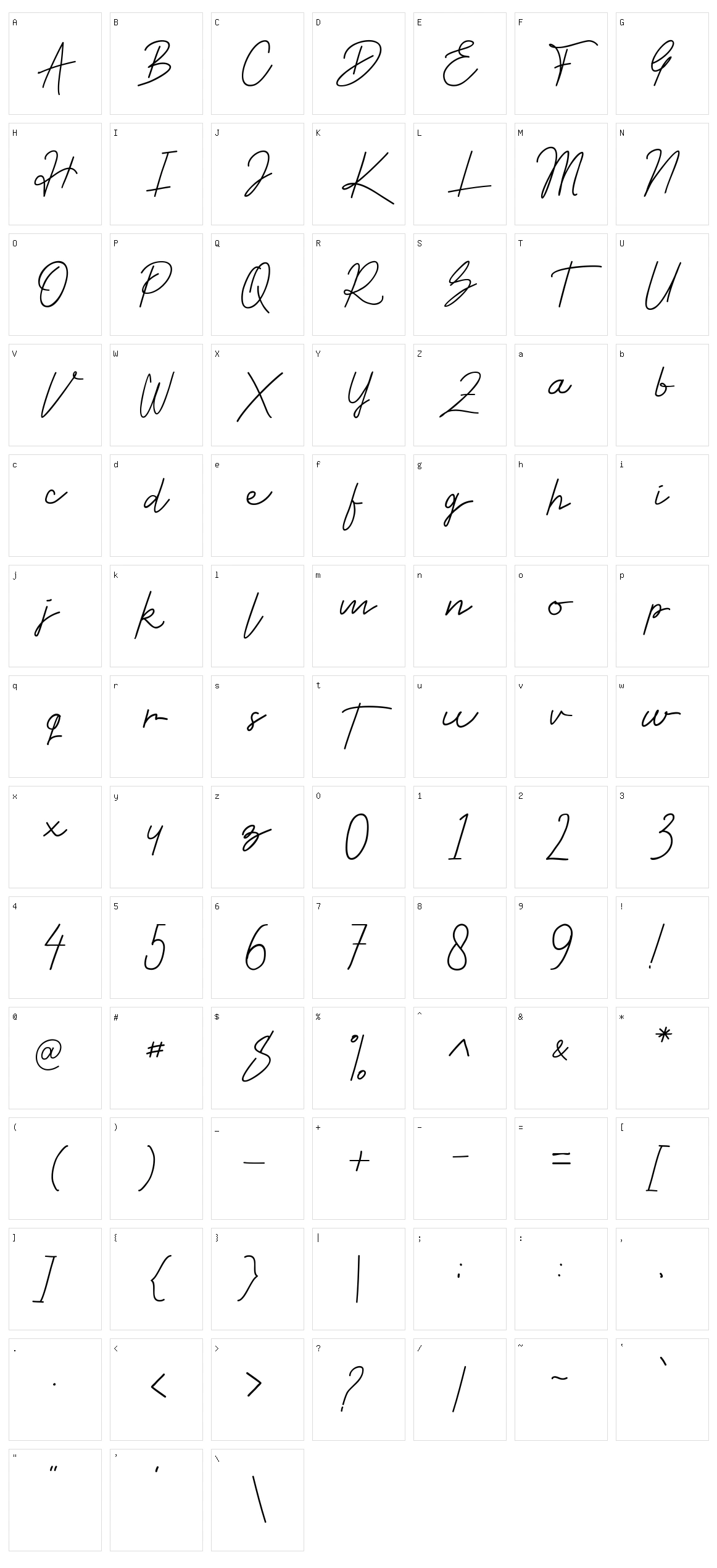
Victorika is a special font created with a touch of detail on each letter.
Visually looks elegant, aesthetic, beautiful and modern. You can use to create designs for
personal branding, perfect for photography, watermark, social media posts, advertisements, logos,
poster titles, magazines, name tags, book titles, business cards, beautiful fashion designs, advertisements,
product designs, wedding invitations, signatures, handwritten quotes.